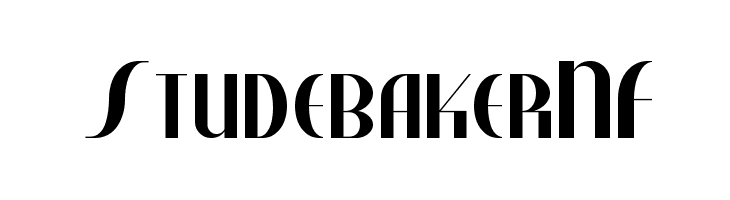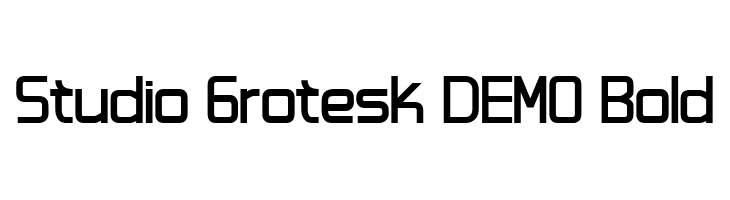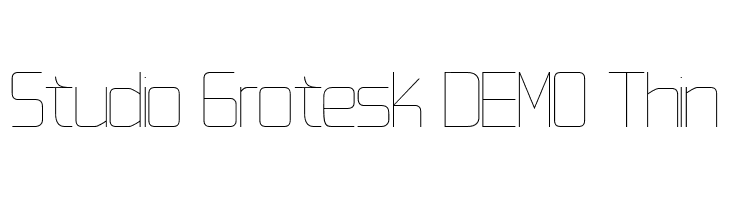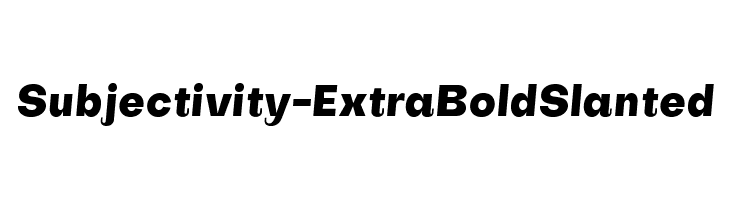
A bold, slanted font with a modern and dynamic style.
A clean, modern sans-serif font with light weight and low contrast.
A modern, slanted font with clean lines and a minimalist design.
A modern, geometric sans-serif font with clean lines and balanced proportions.
A modern, slanted sans-serif font with medium weight and clean lines.
A modern, geometric sans-serif font with clean lines and balanced spacing.
A modern, slanted sans-serif font with clean lines and balanced spacing.
A bold, geometric font with strong visual impact and high contrast.
A bold, slanted font with a dynamic and modern style.
A modern, thin-stroke font with a clean and minimalist design.